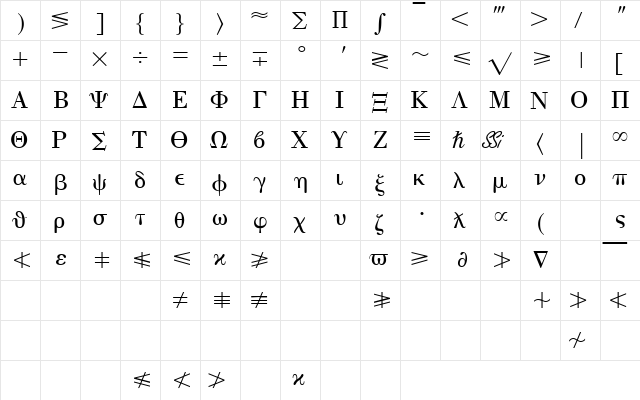
EisagoGreekSSK Regular Font Preview
EisagoGreekSSK Regular
Design Context for EisagoGreekSSK Typeface
EisagoGreekSSK takes a measured approach to typography — its balanced proportions and neutral character make it a reliable workhorse for both digital and print work.